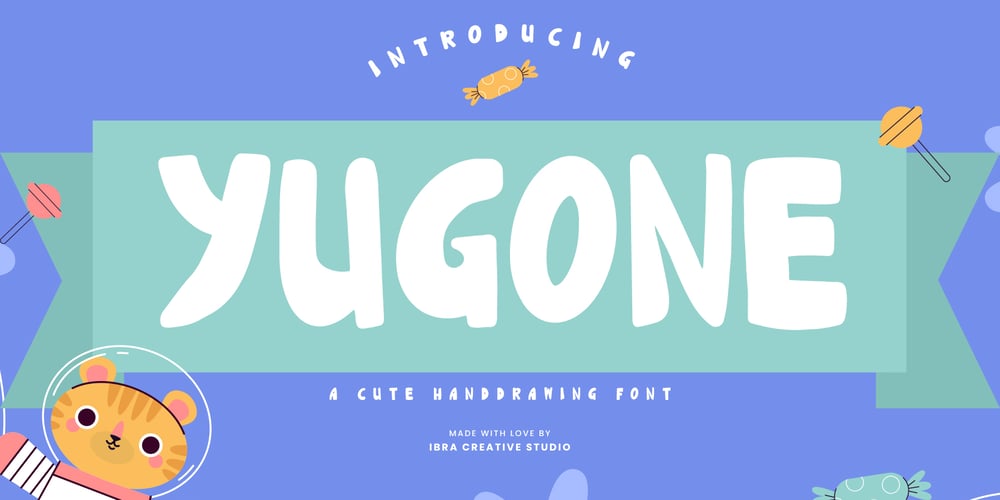
Yugone Font Family was designed by Roisatul Azizah and published by IbraCreative. Yugone contains 1 styles and family package options. Yugone, a delightful hand-drawn font, exudes an endearing charm with its whimsical and playful strokes. Each character is meticulously crafted, embracing a delightful simplicity that lends an approachable and cute aesthetic. The font’s warm, rounded edges create a friendly and inviting feel, making it perfect for conveying a sense of innocence and joy in various design projects. Whether used for greeting cards, children’s books, or social media graphics, Yugone adds a touch of sweetness and character, capturing attention with its uniquely handcrafted appeal. The fluidity of the strokes and the carefully designed details make Yugone an enchanting choice for those seeking a cute and charming hand-drawn font to infuse their creations with personality and warmth.